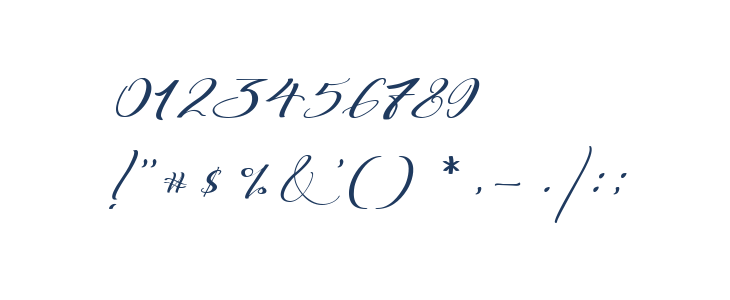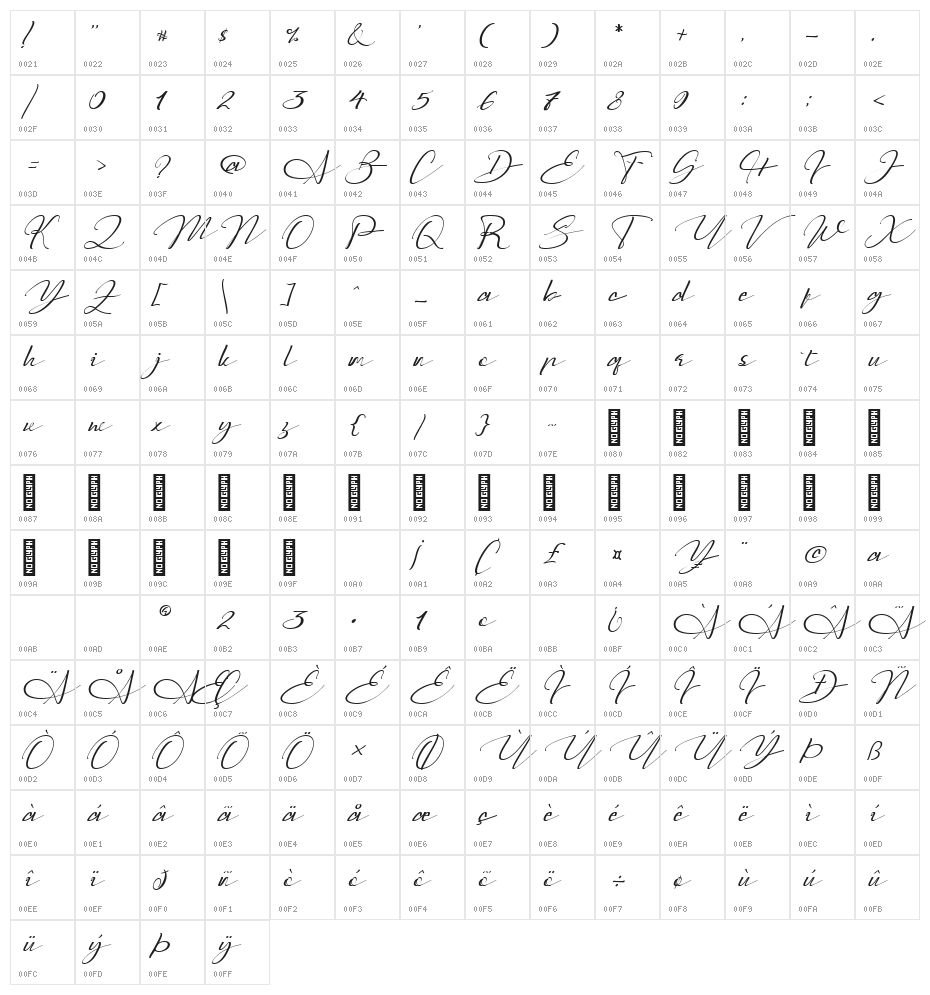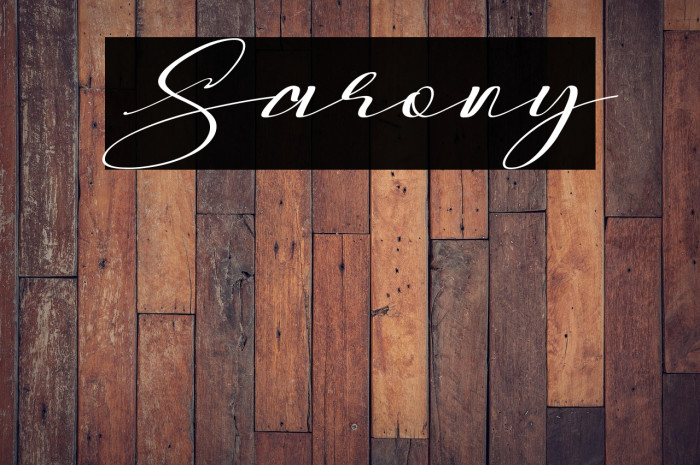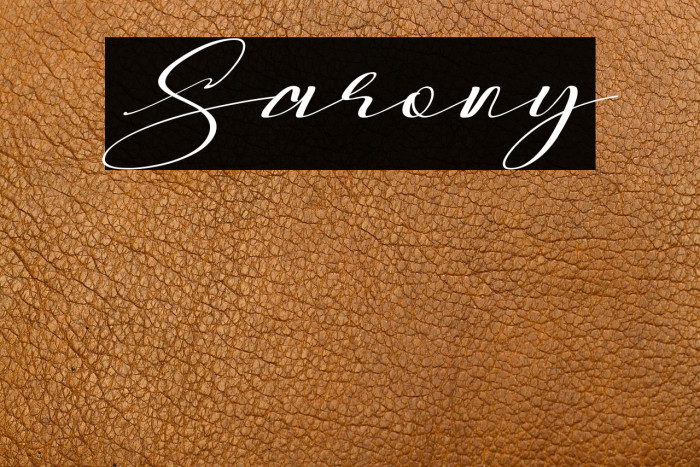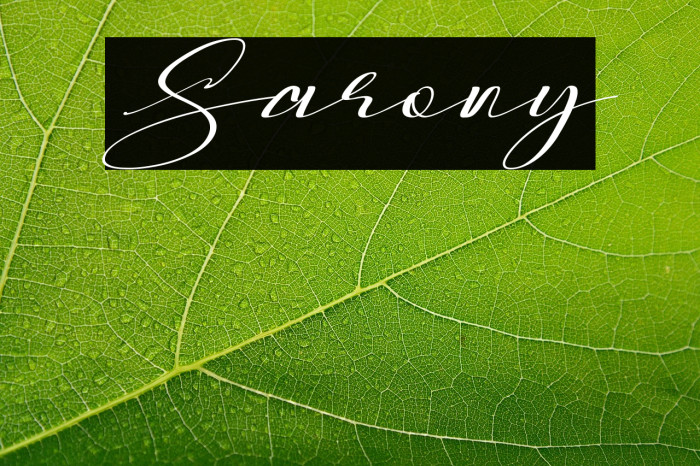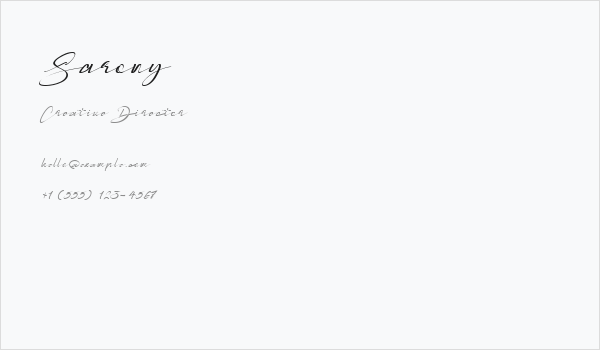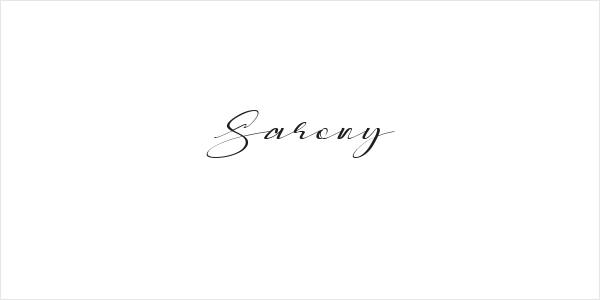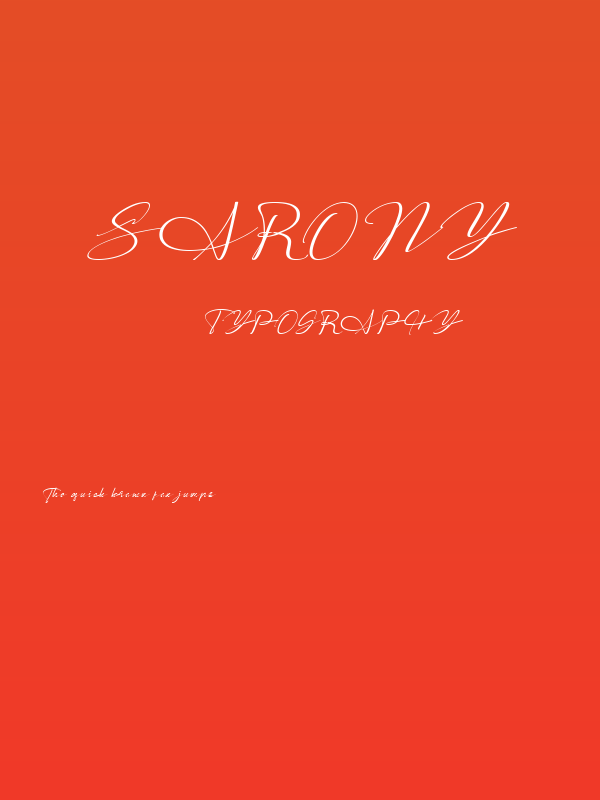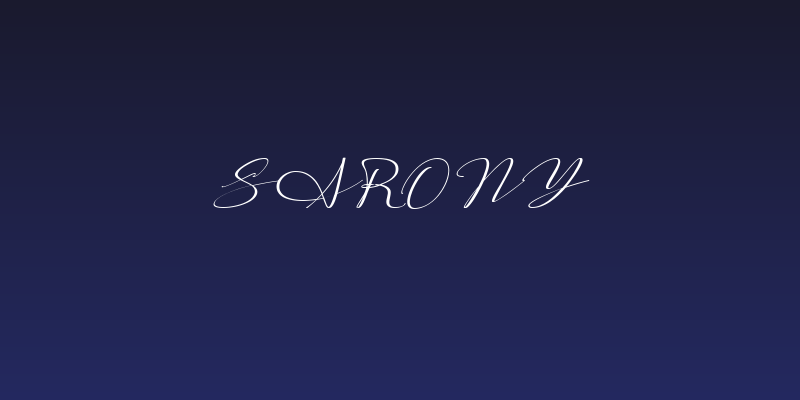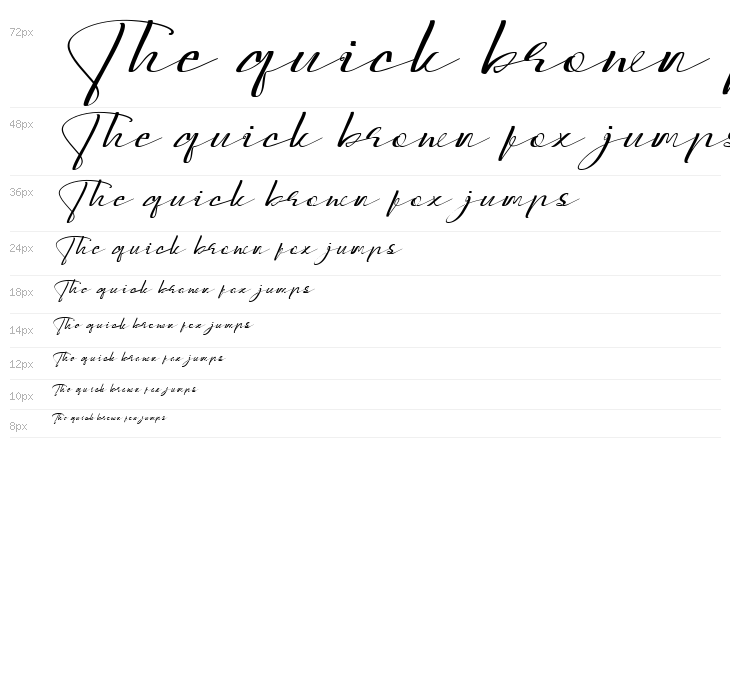
Sarony Font
Sarony Description
This elegant script font features fluid, cursive strokes that create a sense of movement and grace. The uppercase letters are ornate and flowing, with intricate loops and swashes that add a decorative touch. The lowercase letters maintain a consistent slant and are connected, enhancing the cursive style. Numbers and special characters are designed with the same attention to detail, ensuring a cohesive look throughout. The font's overall appearance is sophisticated and stylish, making it suitable for formal invitations, branding, and other projects that require a touch of elegance.